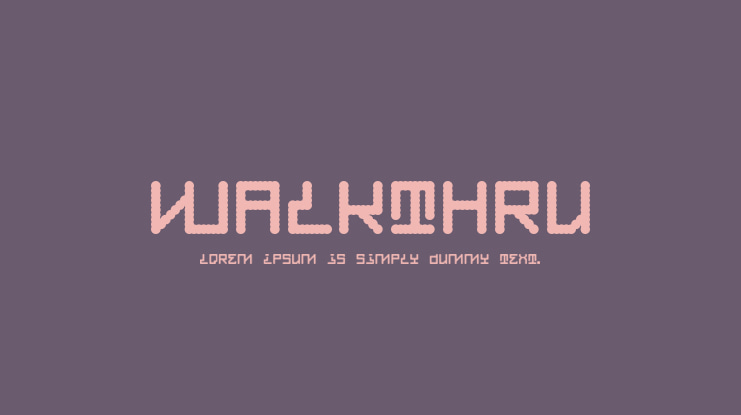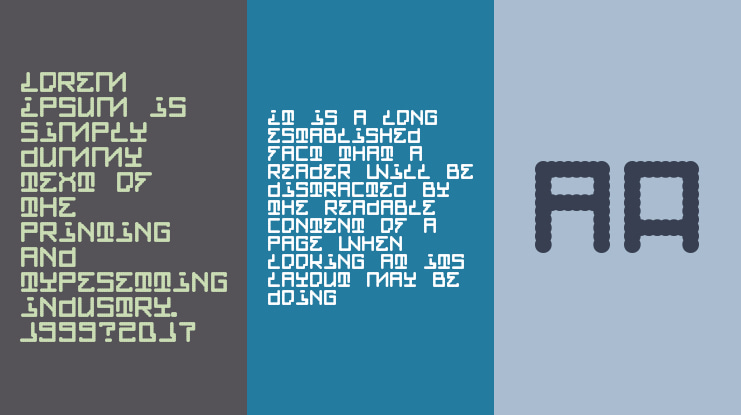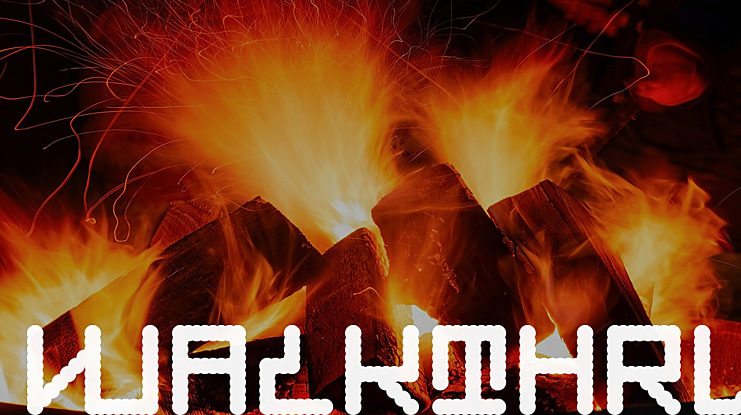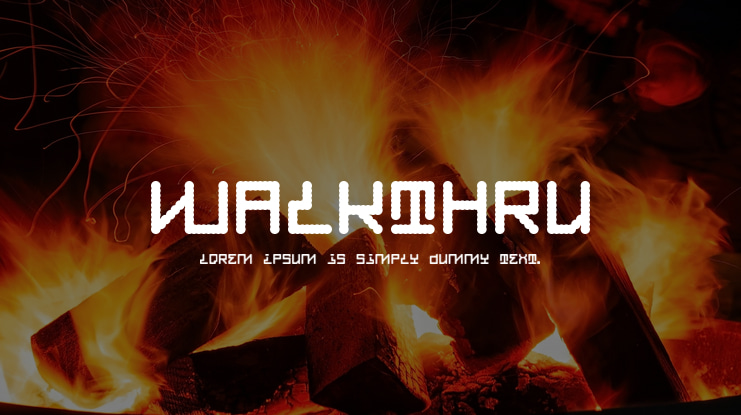
Walkthru Font
Walkthru is an attempt to emulate the Sharpie marker aesthetic created by Mike Giant in a digital format. Each West Coast graffiti letterform is created using a series of circles.
The lowercase glyphs are modifications of the uppercase glyphs.